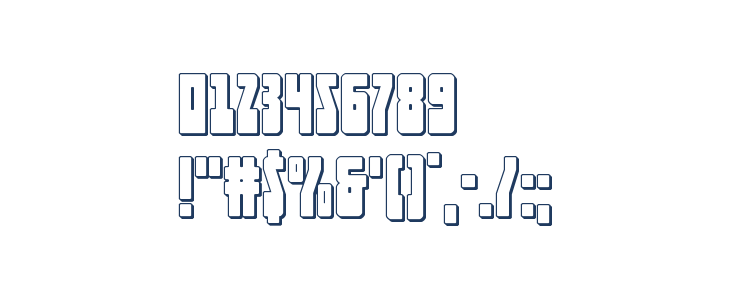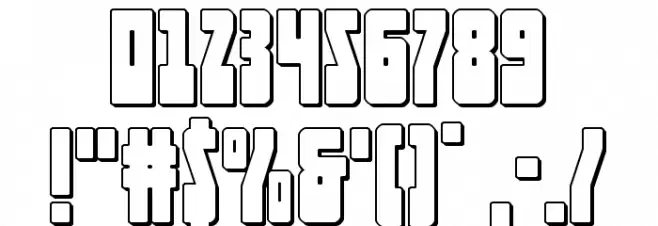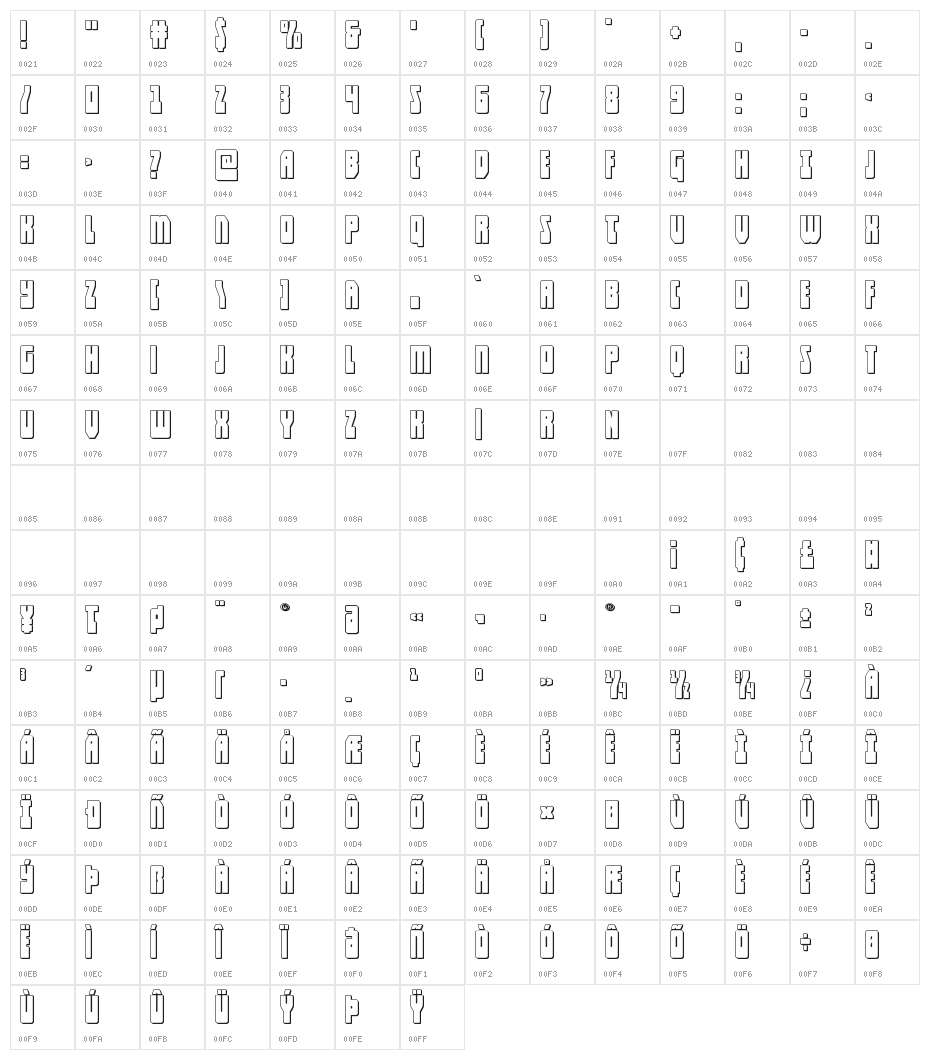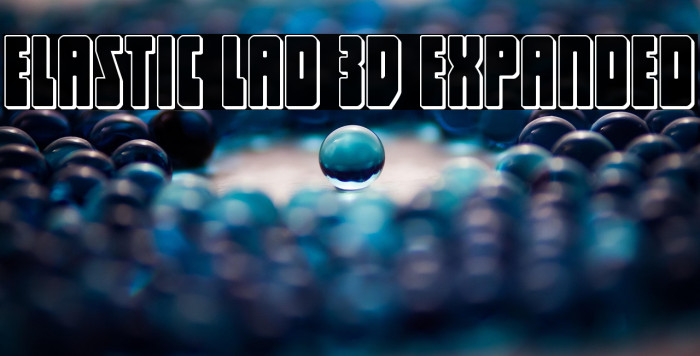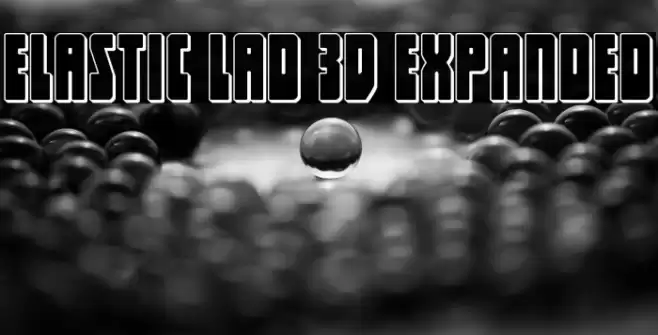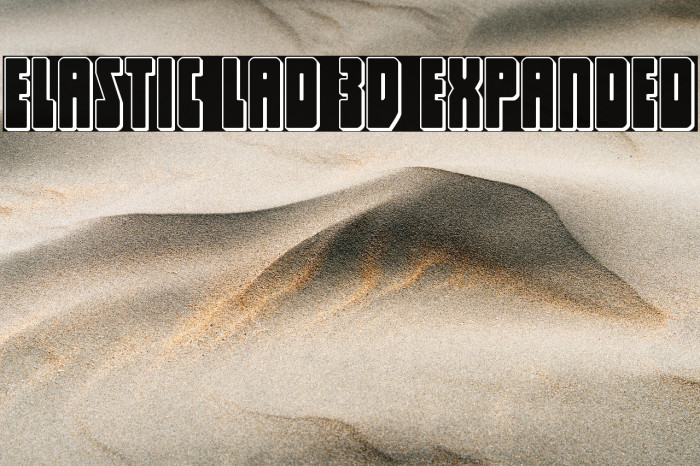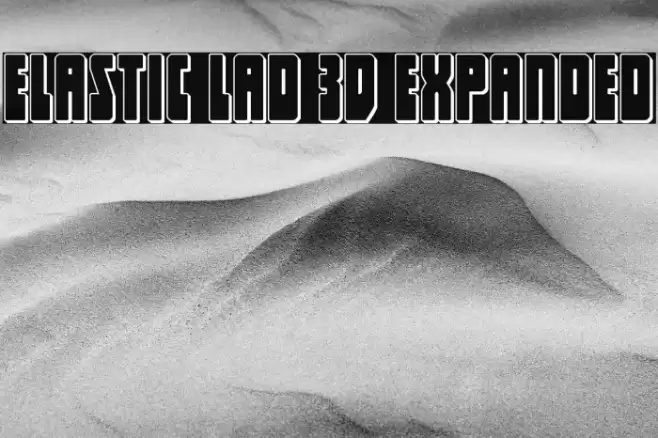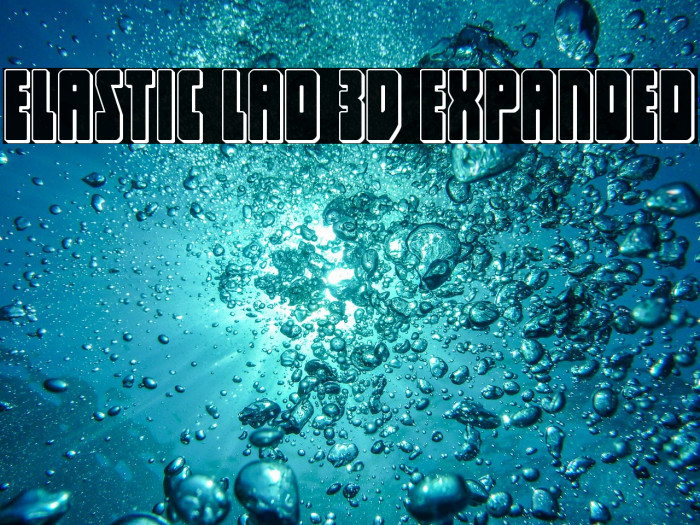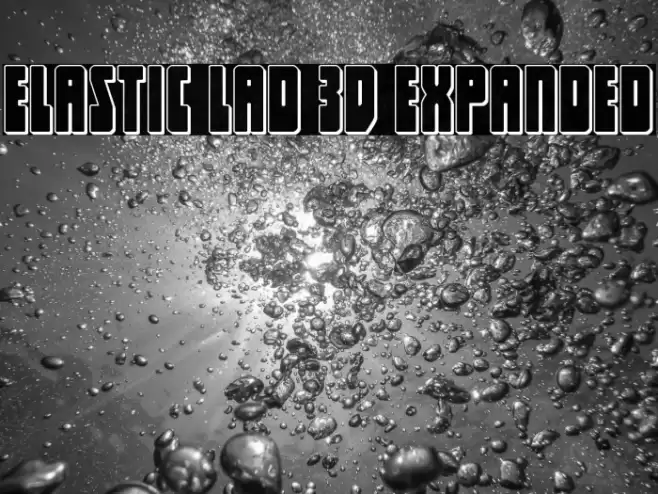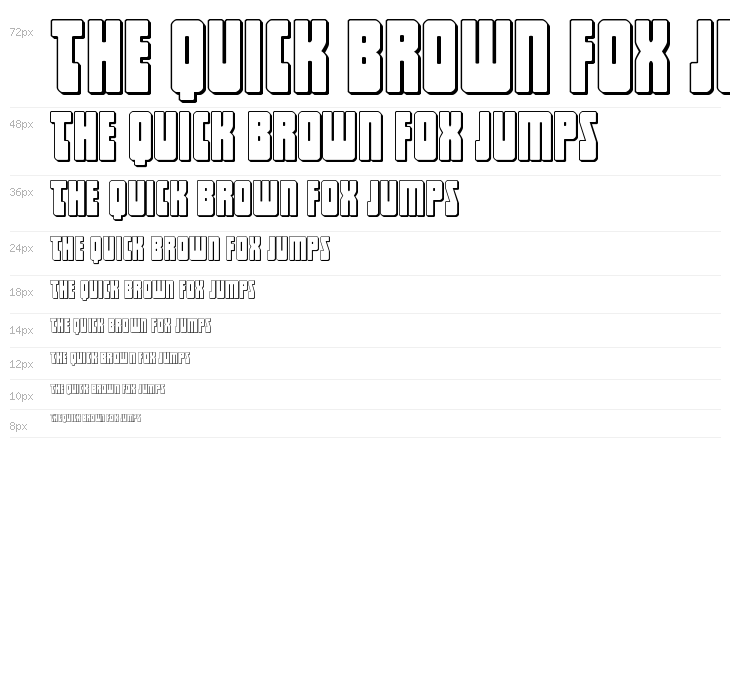
Elastic Lad 3D Expanded Font
Elastic Lad 3D Expanded Description
This font features a bold, three-dimensional appearance with an expanded width, giving it a strong and impactful presence. The characters are outlined, creating a shadow effect that enhances the 3D illusion. Each letter and number is uniformly styled, maintaining a consistent thickness throughout. The design is geometric and blocky, with sharp angles and straight lines, contributing to its modern and futuristic aesthetic. The font is highly legible, making it suitable for attention-grabbing headlines or titles. The special characters are designed to match the bold and structured style of the alphanumeric characters, ensuring a cohesive look across all text elements.
Proposed ProjectsIdeal for posters, video game graphics, branding, and any project requiring a bold, modern look.